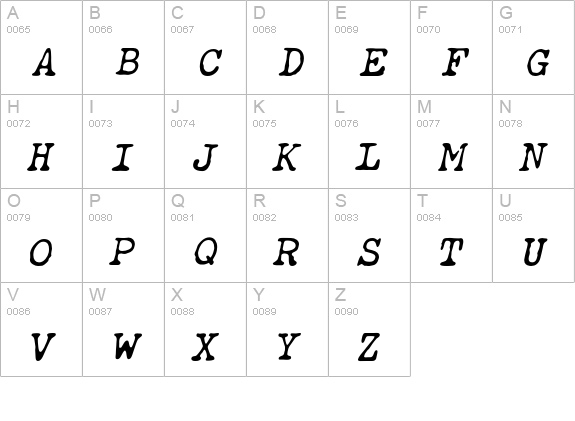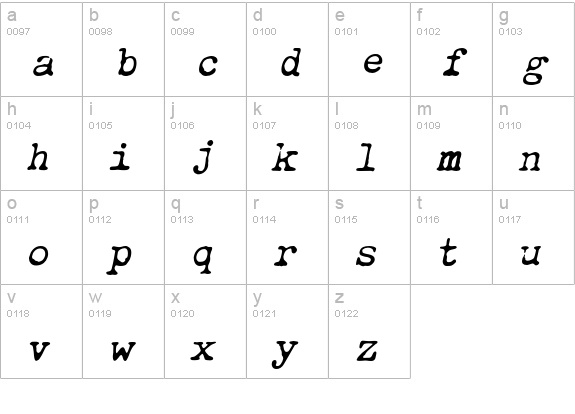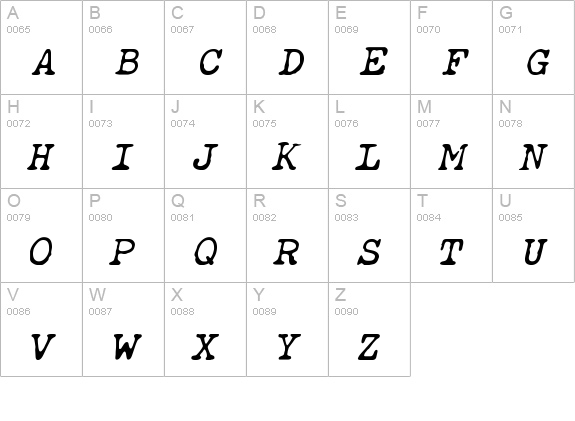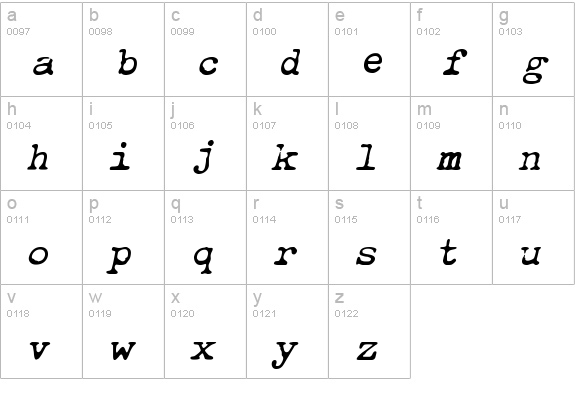
ObsoleteOblique Font Details
ObsoleteOblique is a unique and stylish font that exudes a sense of vintage charm and modern sophistication. Its slanted and slightly off-kilter design gives it a playful yet elegant appearance, making it perfect for a wide range of design projects. This font is ideal for adding a touch of personality and character to your creations, whether you're designing a logo, poster, invitation, or any other type of visual communication. The distinct slant of the characters in ObsoleteOblique creates a sense of movement and dynamism, making it stand out from other more traditional fonts. Its sleek lines and sharp angles give it a contemporary edge, while its slightly retro feel adds a touch of nostalgia. What's even better is that ObsoleteOblique is completely free to download at FontsMarket.com. This means you can start using this stunning font in your projects right away, without having to worry about any costs. So why wait? Download ObsoleteOblique today and elevate your designs with its unique style and flair.